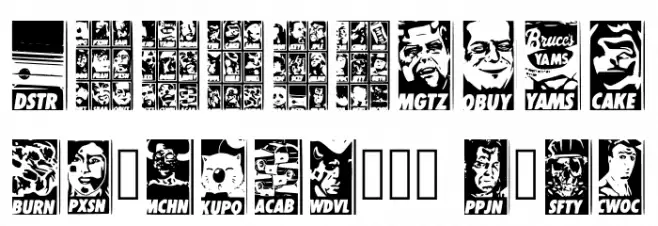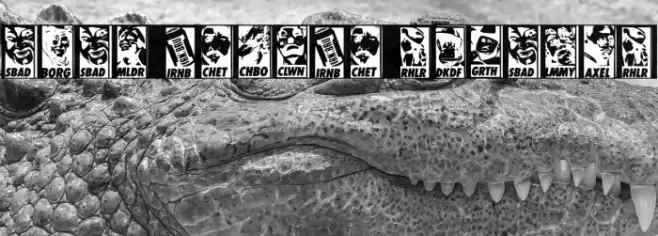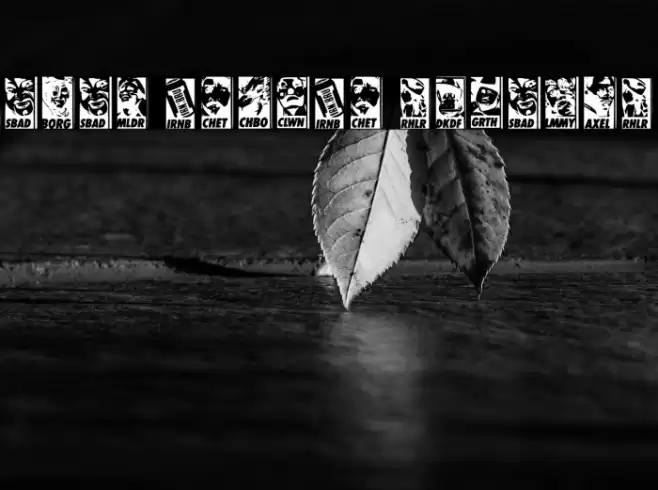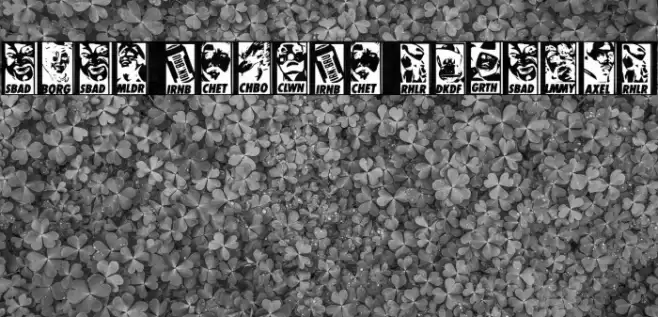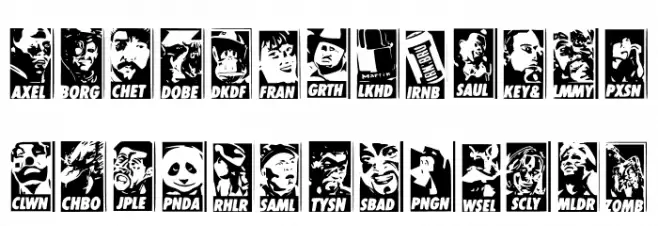
Ubuy Iconic Regular Font
Ubuy Iconic Regular Description
This font features a unique and bold design, incorporating iconic imagery within each character. Each letter and number is presented as a distinct graphic, merging typography with visual storytelling. The characters are enclosed in rectangular frames, giving them a poster-like appearance. This style is highly decorative, making it suitable for projects that require a strong visual impact. The font's design is reminiscent of comic book art, with high contrast and detailed illustrations. It is not suitable for body text due to its intricate design but excels in creative and artistic applications.
A bold, decorative font with iconic imagery integrated into each character from Dingbats fonts.
- Proposed Projects: Ideal for posters, album covers, graphic novels, and any project requiring a striking visual element.
- Contrast: High
- Use Case: Logos, Headlines, Posters